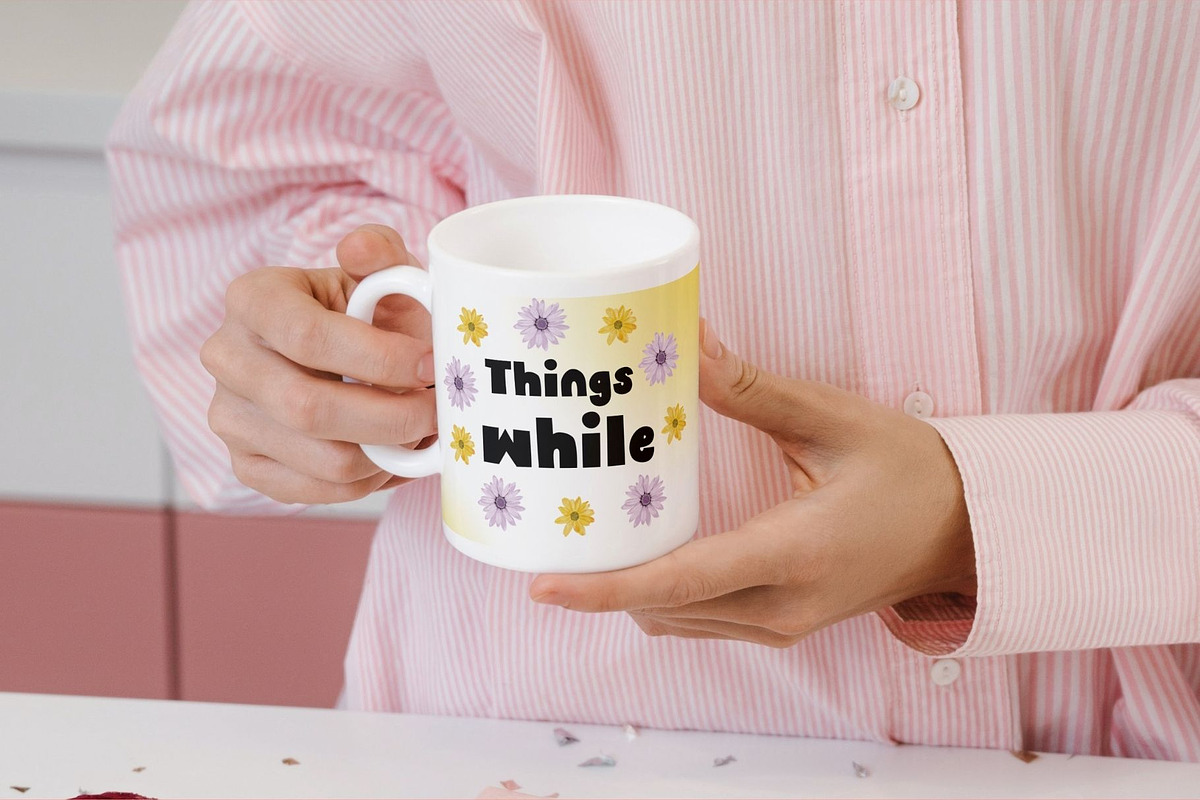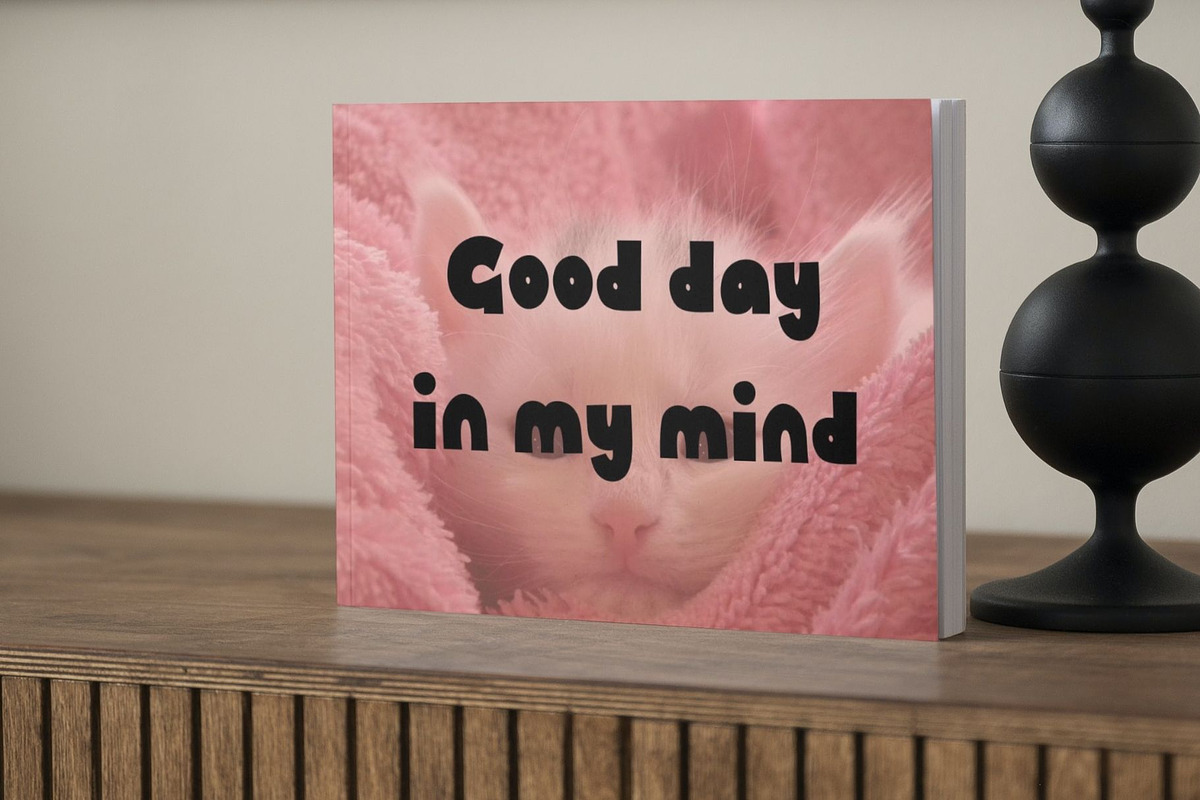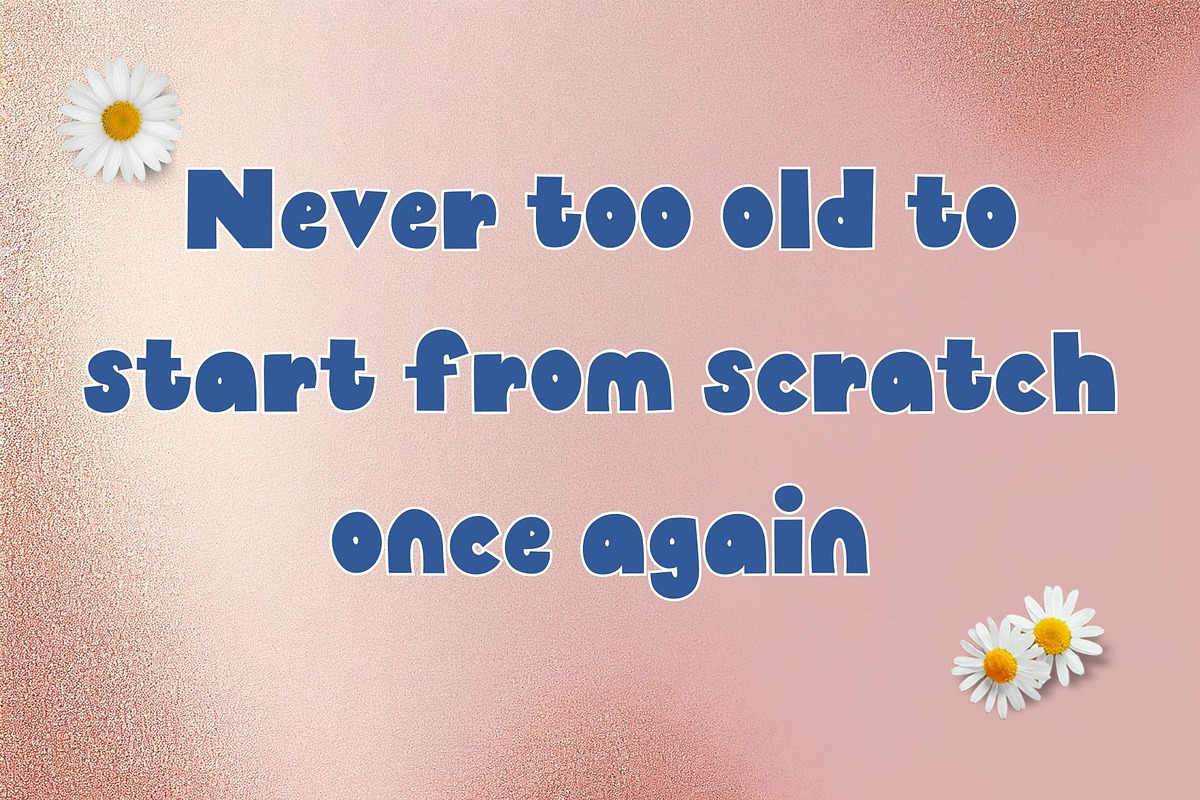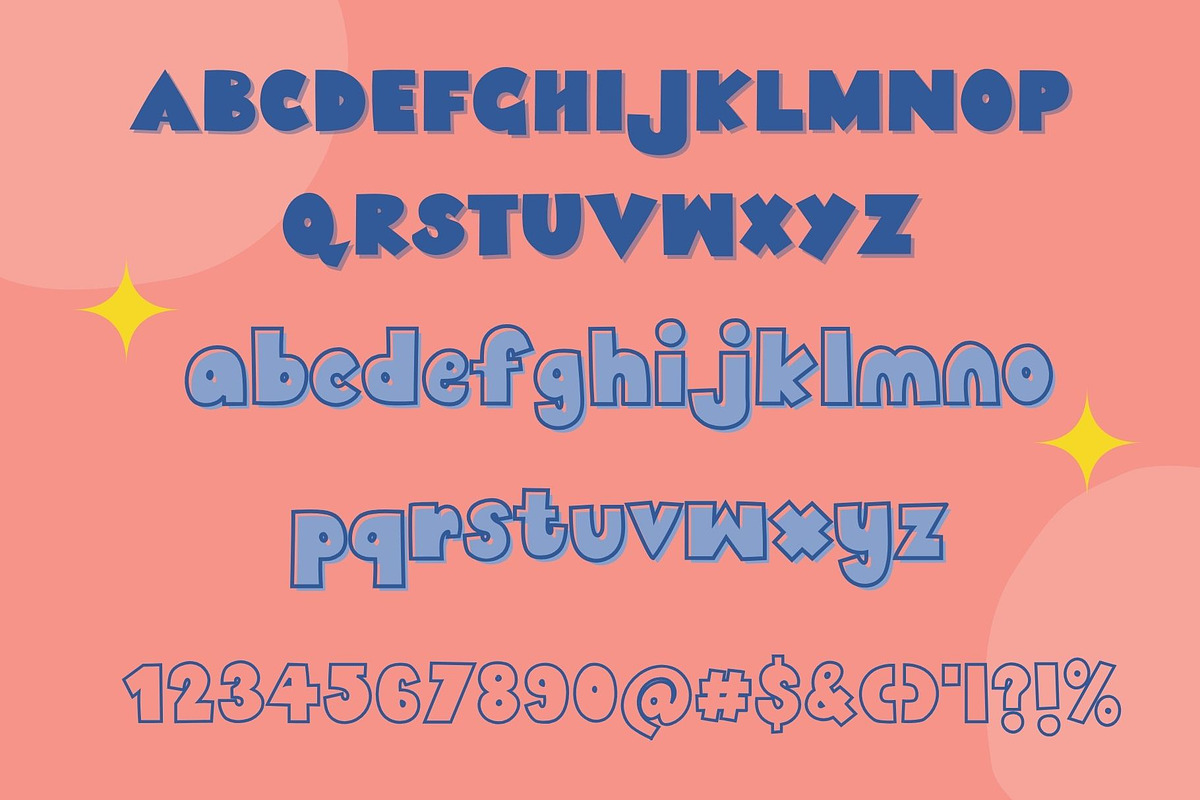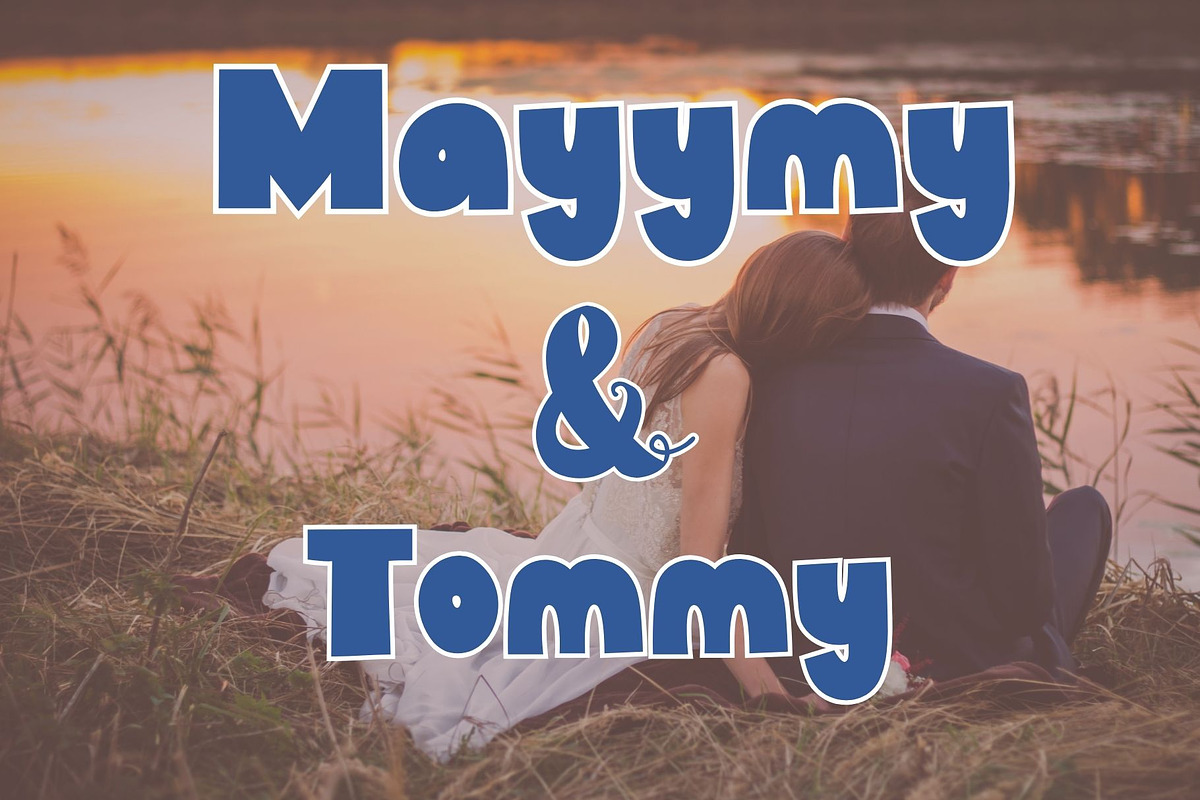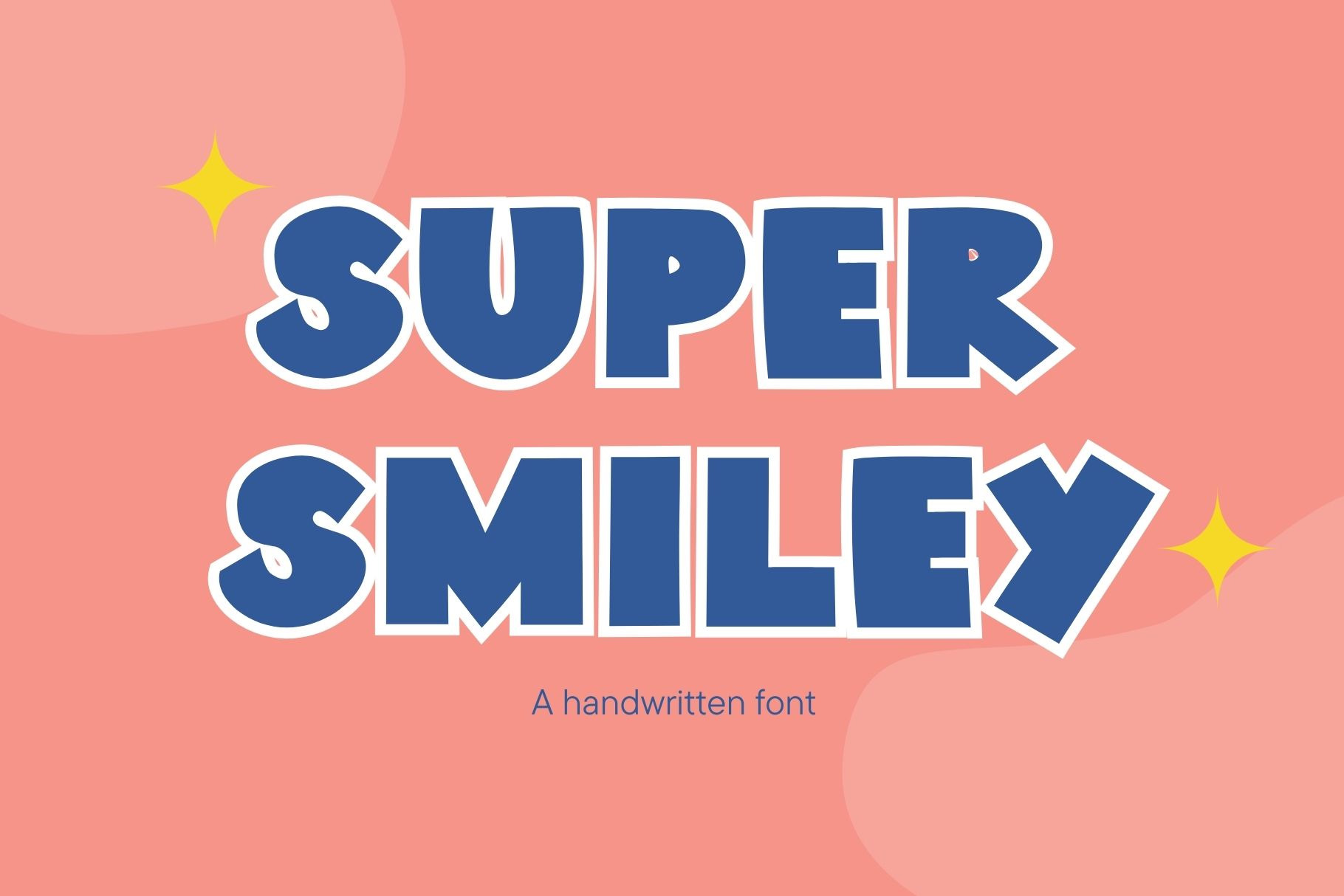
Super smiley font
"super smiley a handwritten font. This decorative font has been designed to feel modern, simple, and charming, making your design work stand out. It can be applied to various design projects, whether it's clothing, bags, books, and more, to showcase your unique personality. Enjoy the design process!